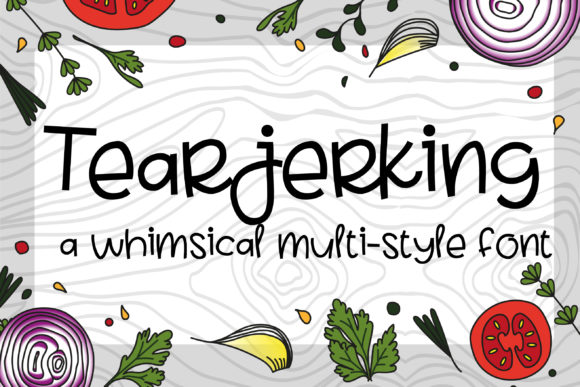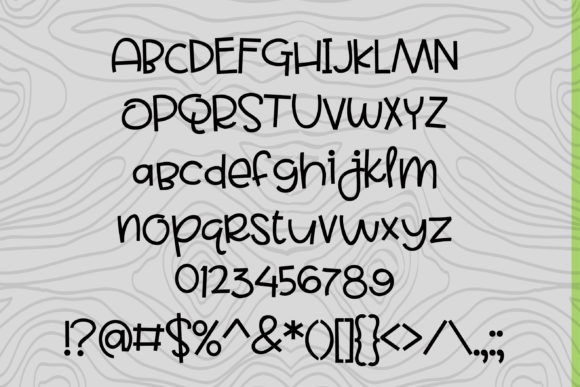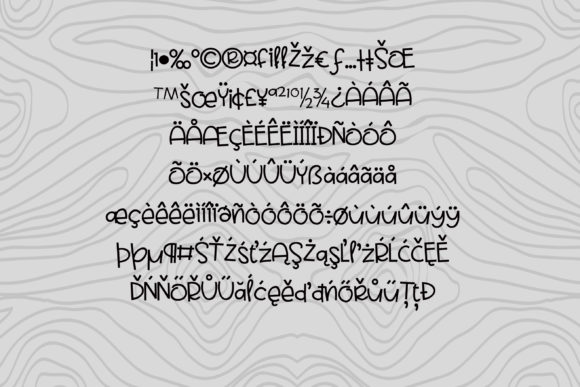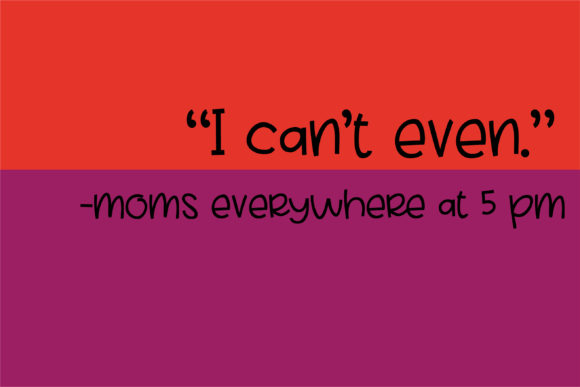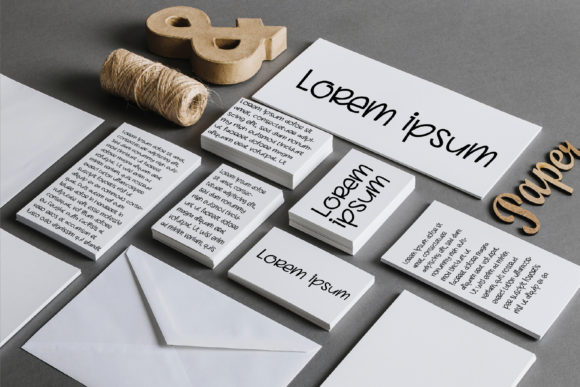
HomeScript FontsTearjerking Font Script Fonts Tearjerking Font FacebookXPinterestWhatsApp Tearjerking Font Poster 2 Tearjerking Font Poster 3 Tearjerking Font Poster 4 Tearjerking Font Poster 5 About Tearjerking Font This fun quasi-script is a hand-written font that incorporates serifs, script elements, sans serifs, and more. DOWNLOAD NOW People also explored Azmerotta Font Pinkish Font Martina Font Athallia Font Sister Sweet The Money Font Pretty Queen Font Romantic Story Font Sloane Font 306 0 TagsTearjerking Font Previous articlePollywog FontNext articleNifty Neato Font LEAVE A REPLY Cancel reply Comment: Please enter your comment! Name:* Please enter your name here Email:* You have entered an incorrect email address! Please enter your email address here Website: Save my name, email, and website in this browser for the next time I comment. Personal Use Free UseYourImagination Personal Use Free Read more about this font Wallabys Junior Personal Use Free Read more about this font Bridgetown Font Personal Use Free Read more about this font Barbatrick Personal Use Free Read more about this font BLOG Modern Sans-Serif Fonts That Brands Love in 2025 In 2025, modern sans-serif fonts remain a top choice for brands looking to project clarity, professionalism, and... Elegant Wedding Invitation Fonts – Handwritten & Script Fonts Using Fonts in Digital Marketing: Tips to Strengthen Your Brand Identity The 10 Best Handwriting Fonts to Add Personality to Your Designs